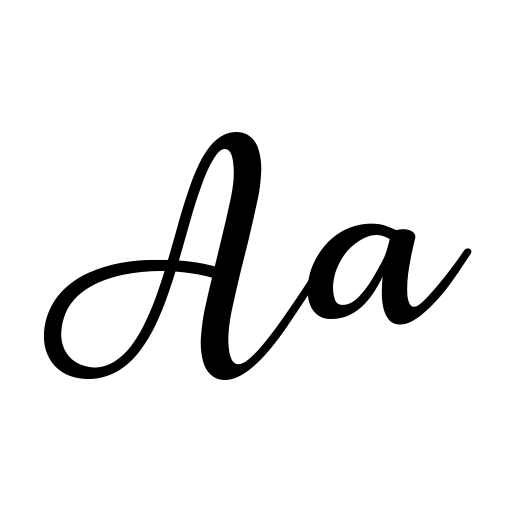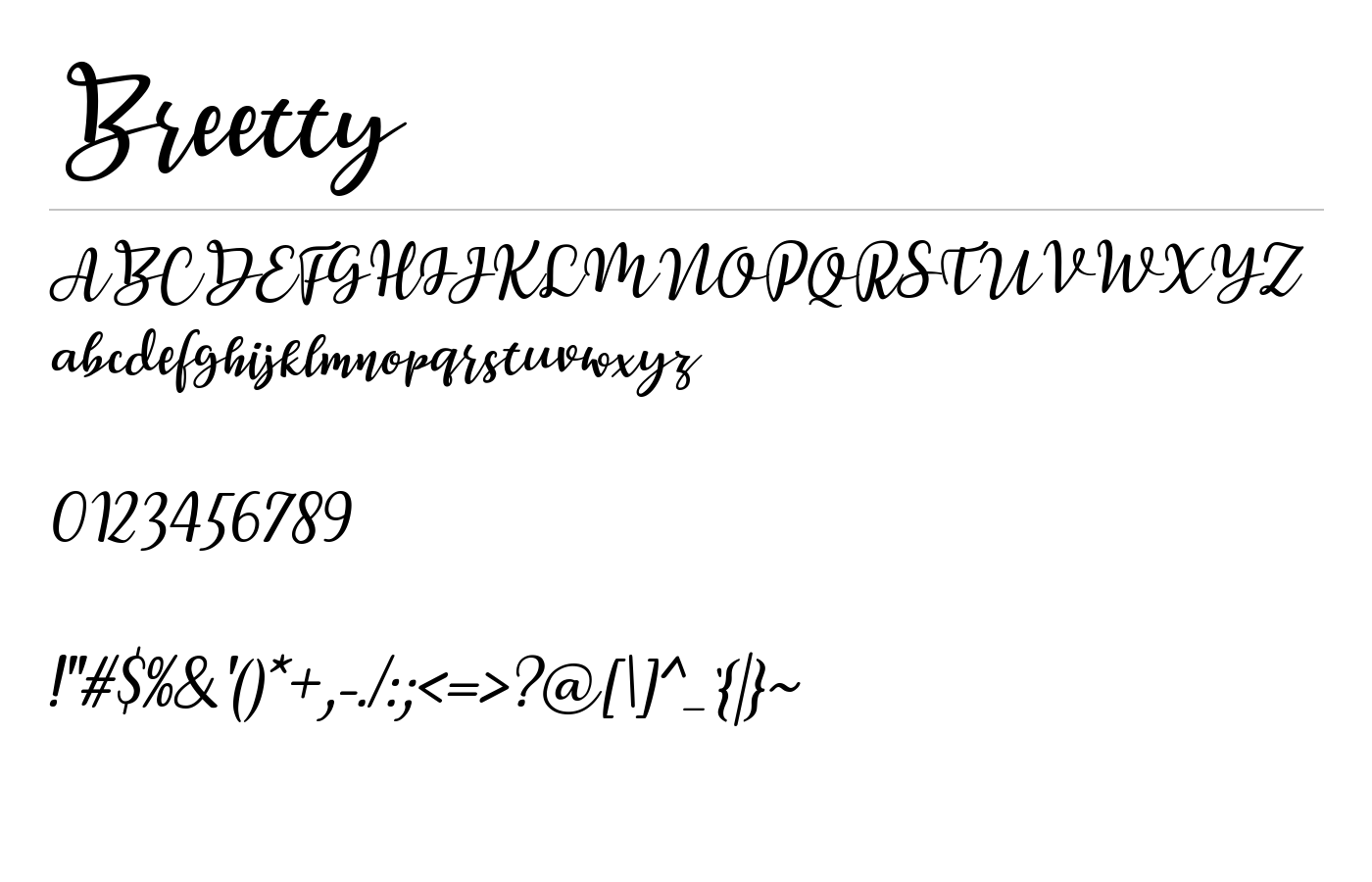
Breetty is an elegant script font with a smooth, handwritten style that blends casual charm with refined sophistication. Its flowing letterforms and medium stroke contrast make it ideal for branding, invitations, and creative projects that seek a personal yet polished touch. This font works beautifully in logos, headlines, and decorative text where a graceful and approachable feel is desired.
| Font family | Breetty Font |
| Designer | Situjuh Nazara |